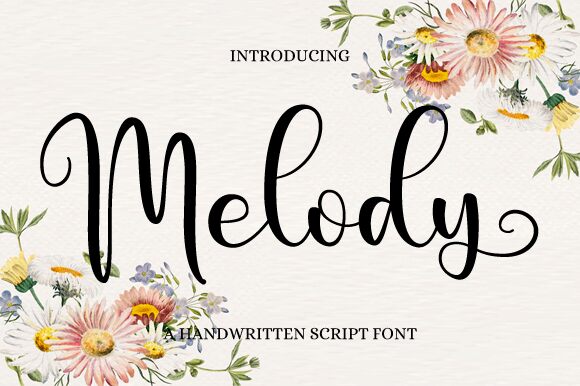
Melody
Melody font by Nirmala Creative is a free calligraphy font that embodies elegance and expressive modern script design. Its flowing, smooth curves carry an undeniable whimsical charm, creating a seamless visual experience that catches the eye.
Perfect for invitations, wedding stationery, branding projects, logos, greeting cards, birthday announcements, social media posts, posters, book covers, labels and packaging designs.